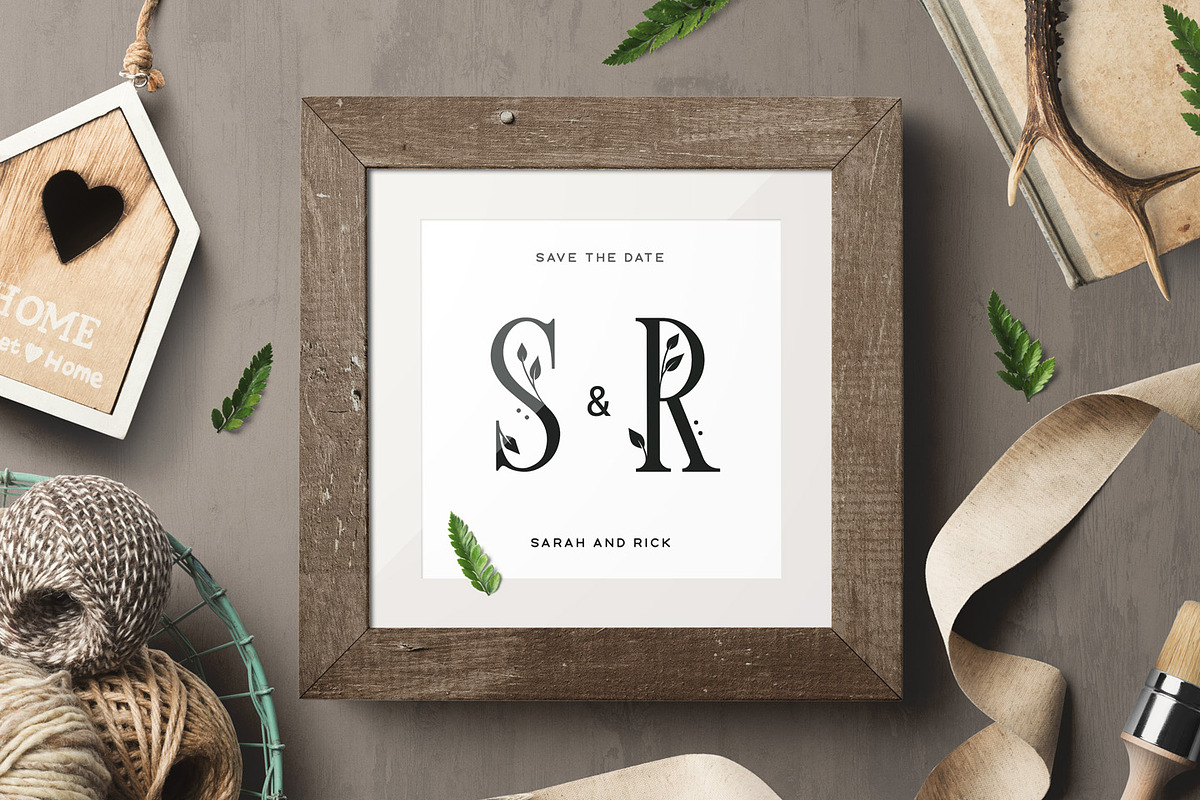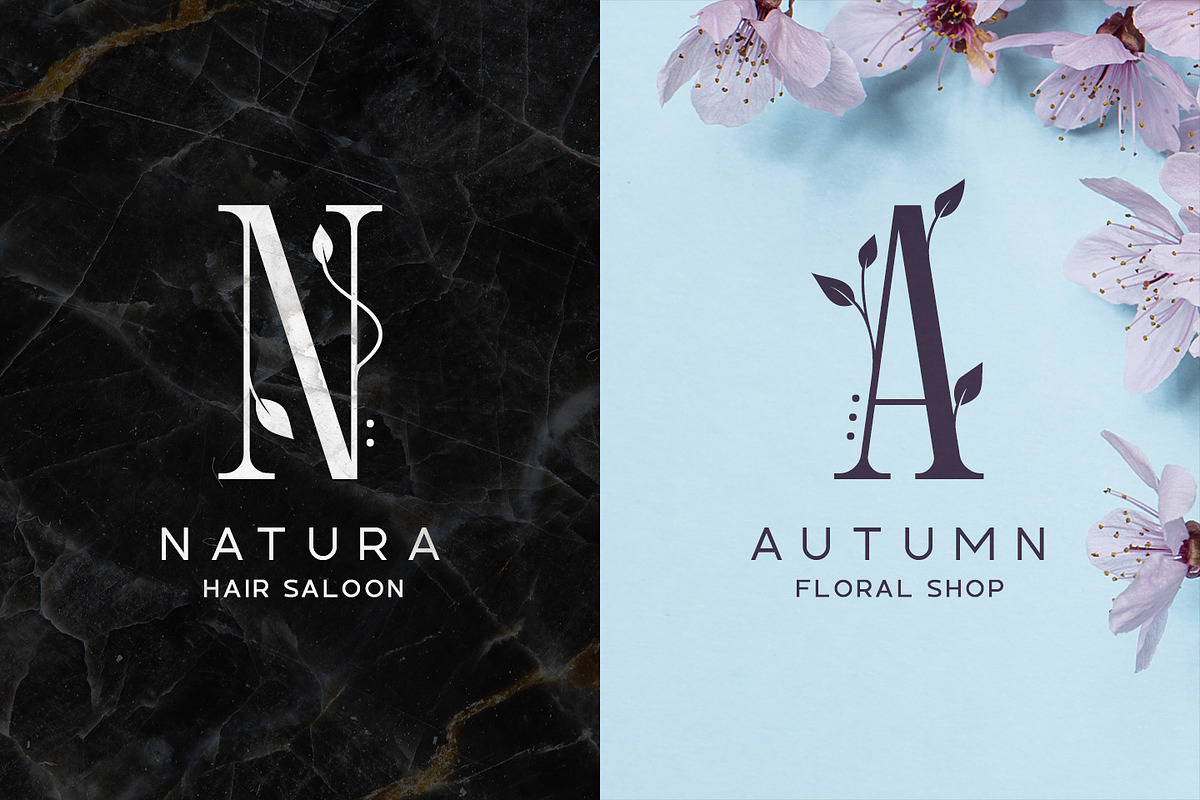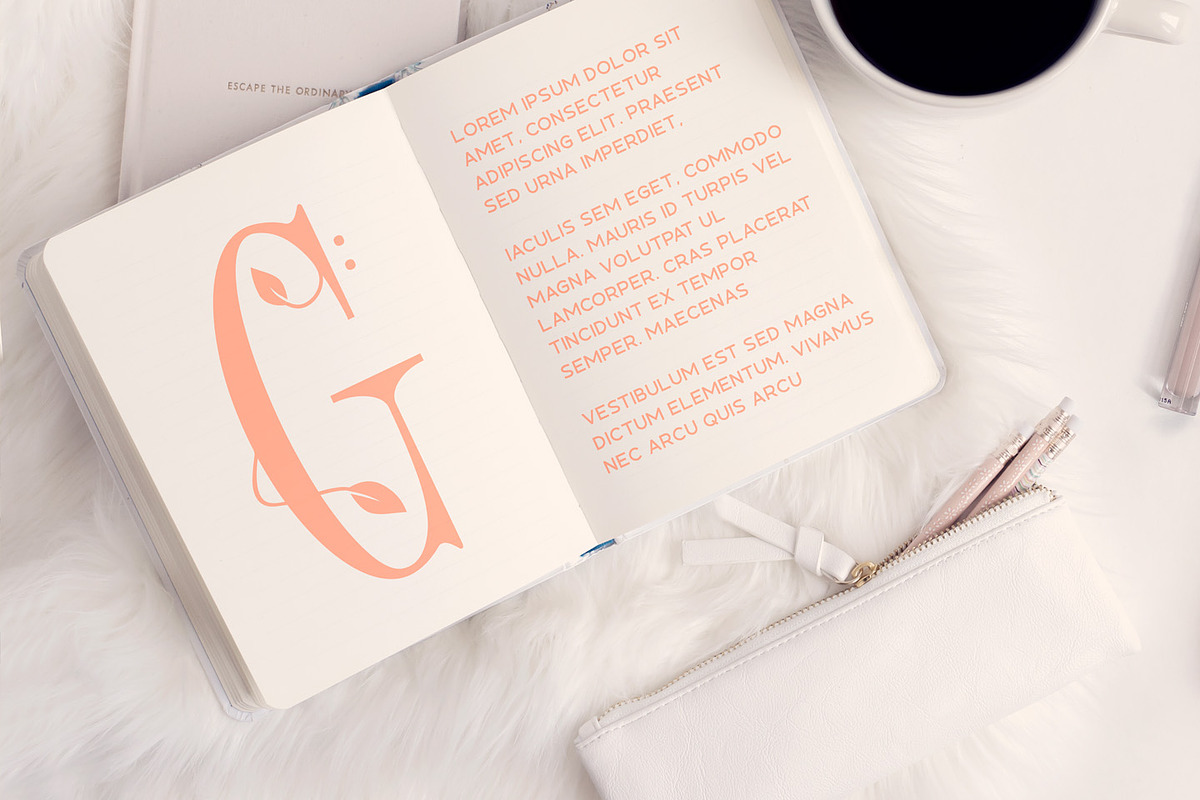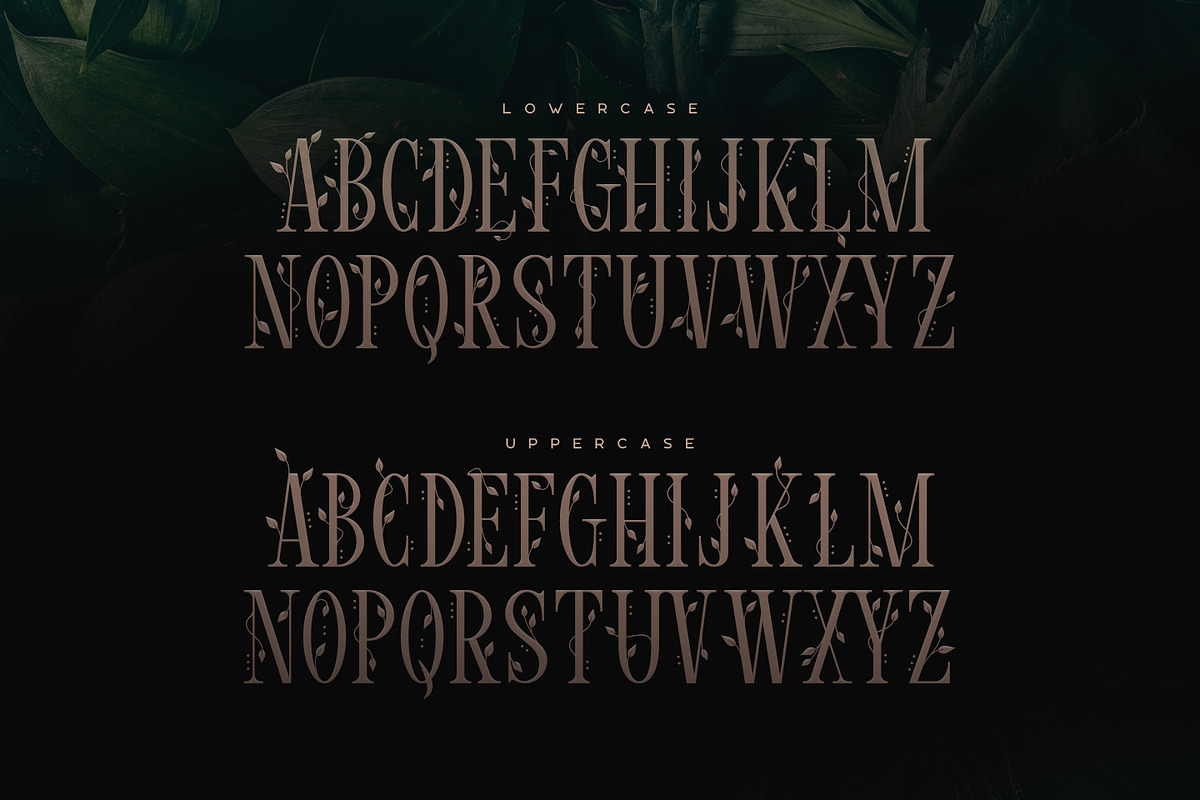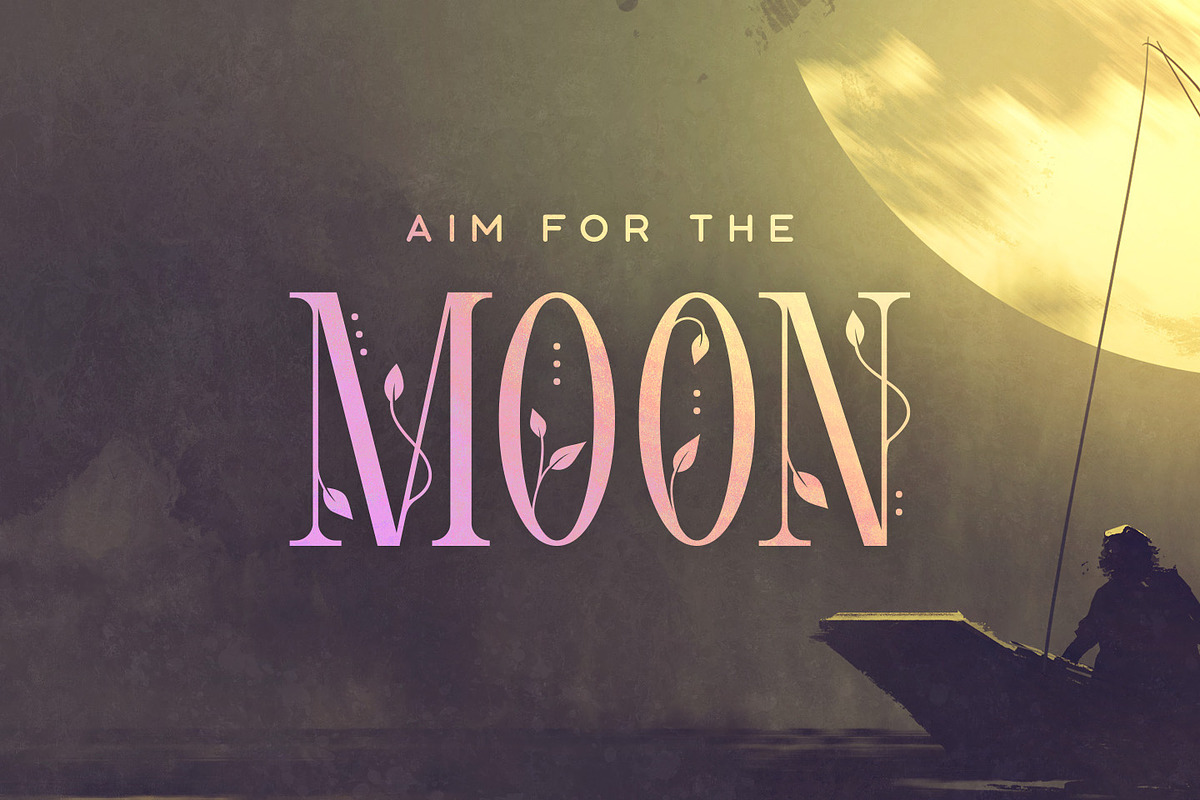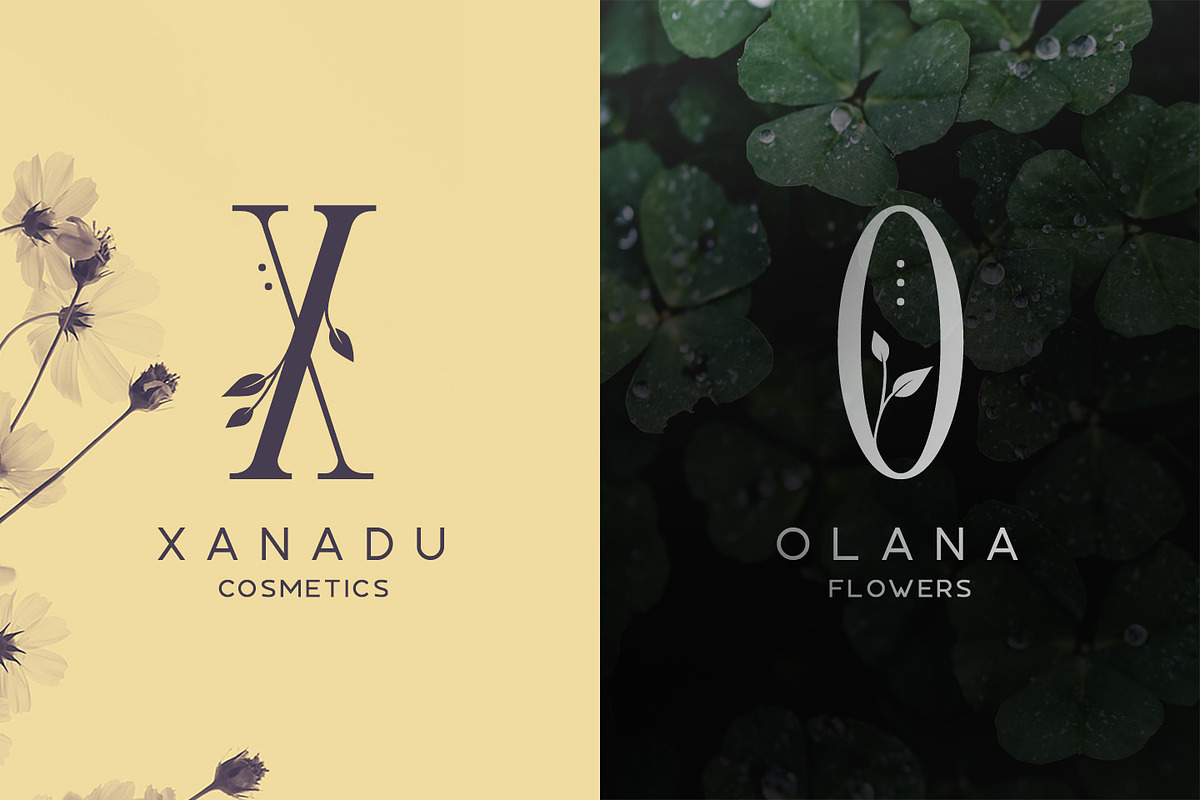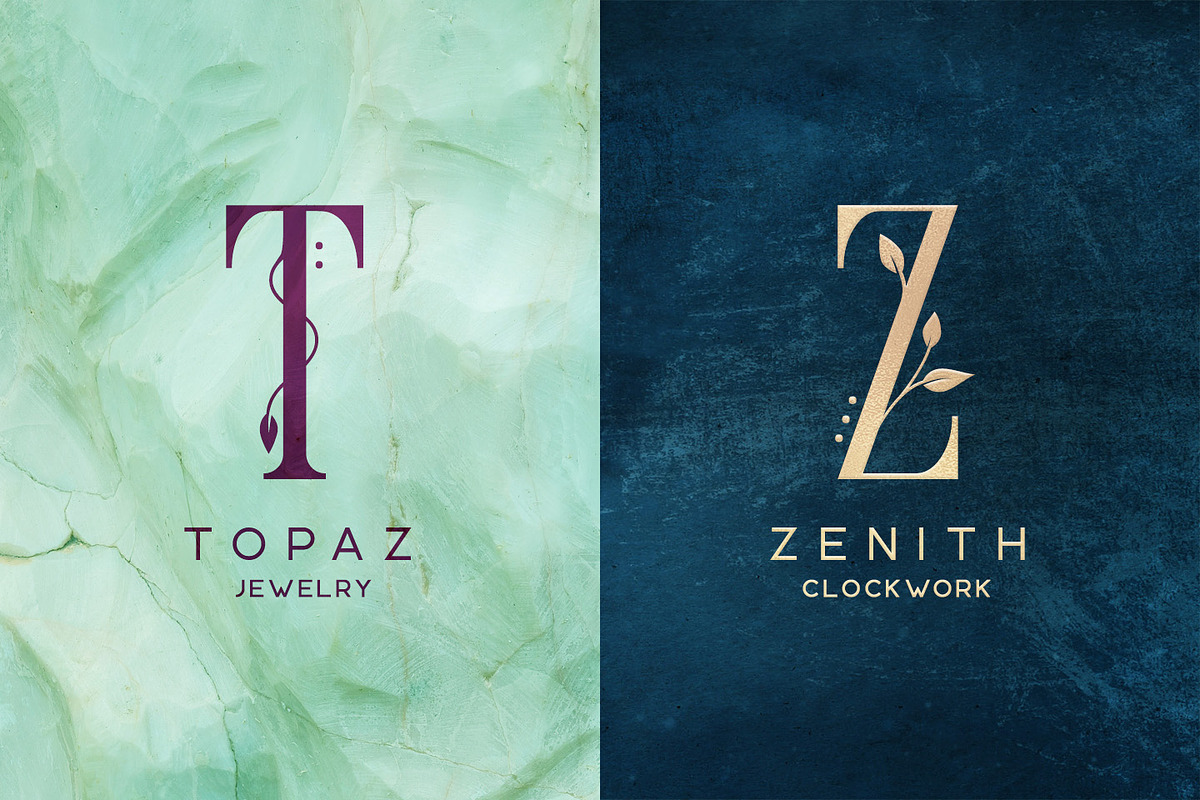
Wisteria • Display Font
Wisteria is a unique serif display font that features leaves as ornaments, every letter has an alternate which you can toggle with caps lock. The font also includes numbers, punctuation and multilingual letters.
The letters work great as standalone logos, or as initials for wedding invitations etc. The font also works great as large sized titles but I wouldn't recommend using it in longer sentences in smaller size.